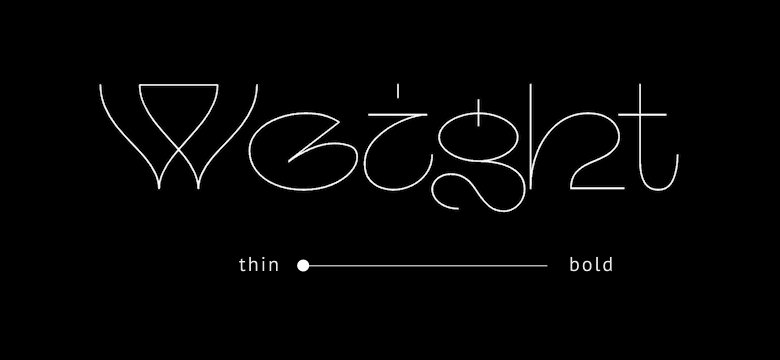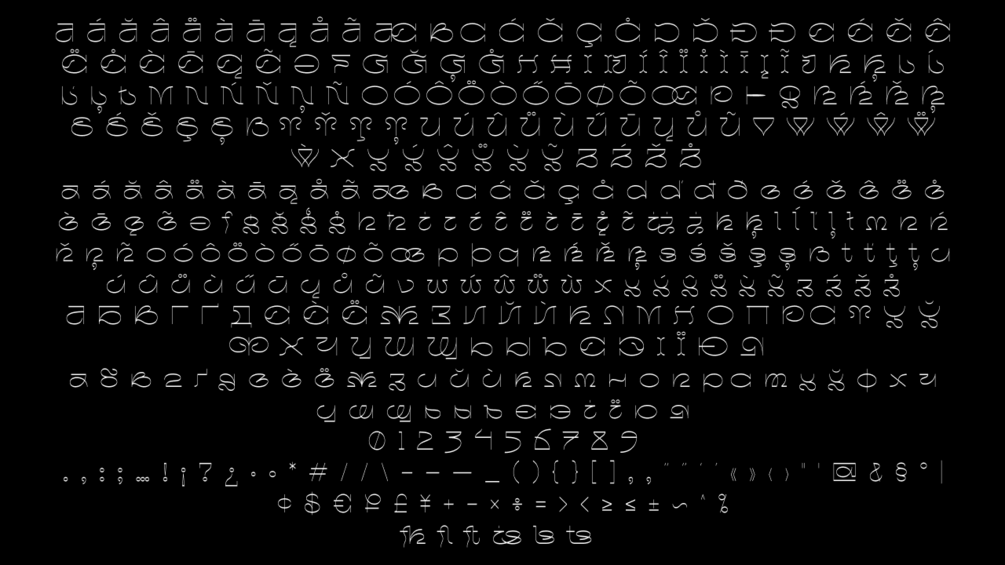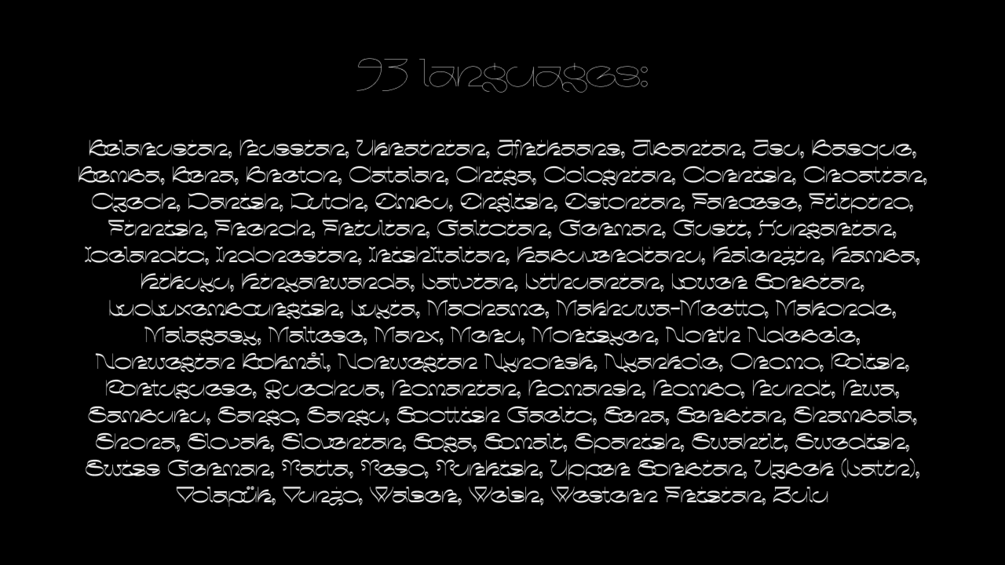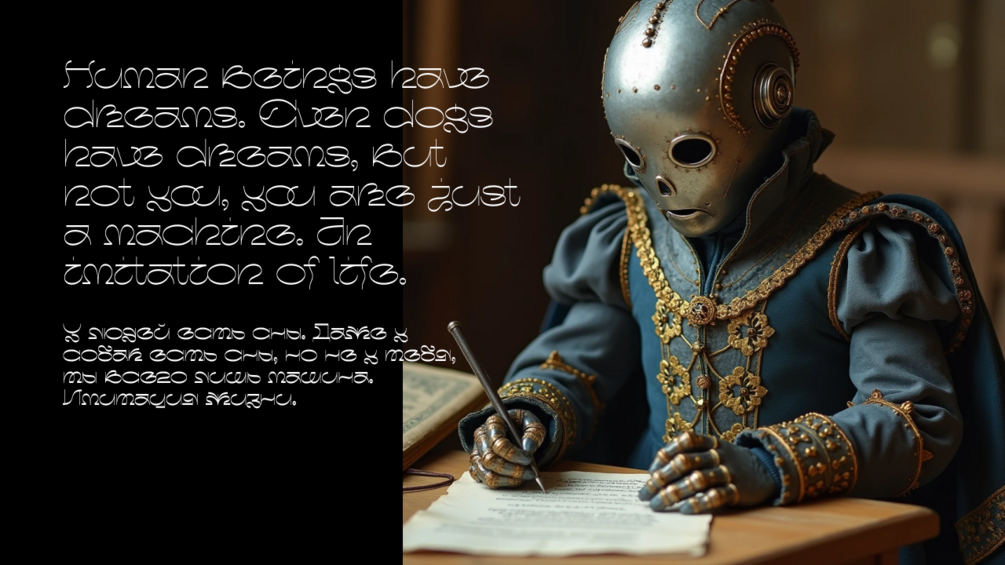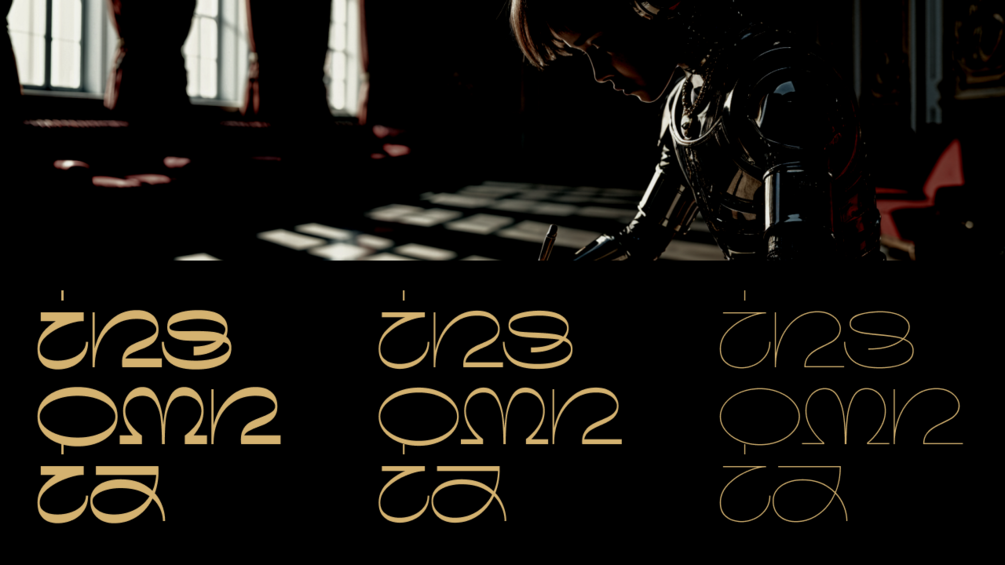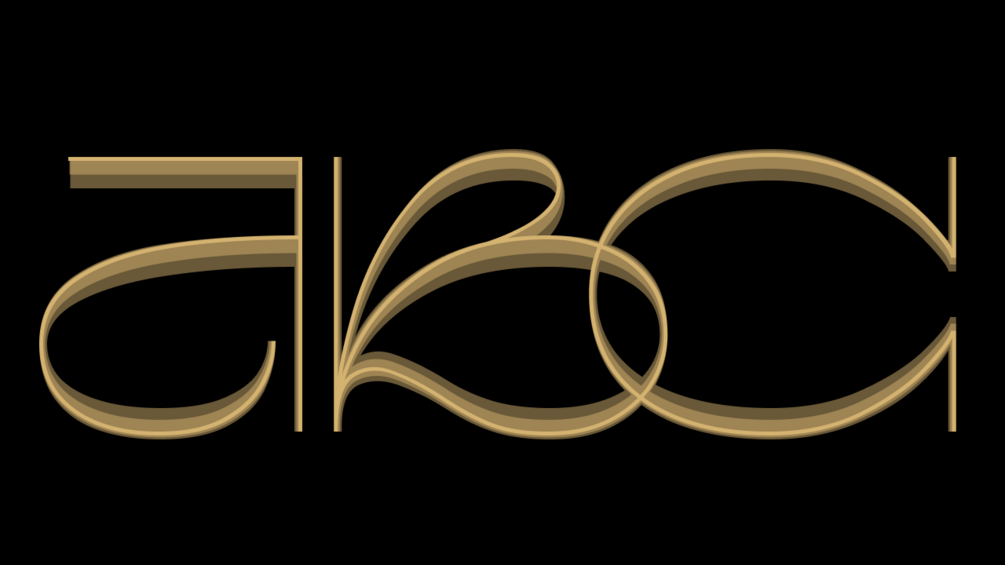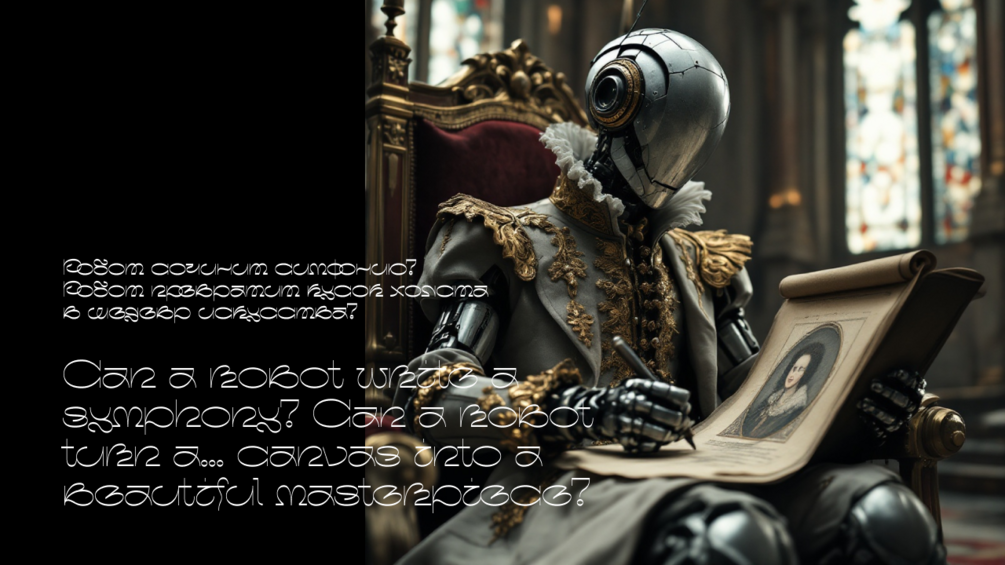
"Insomnia" is a Victorian-inspired accident font.
93 languages ​​are supported, including Latin and Cyrillic letters, numbers and symbols. The font is variable. Weight settings from thin to bold are available.